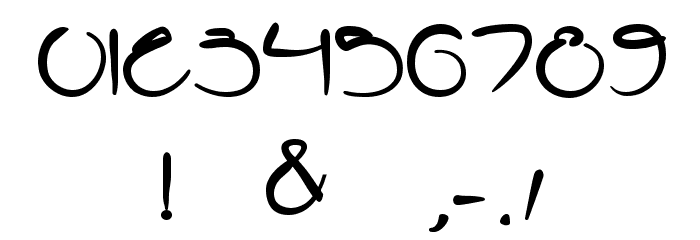
Elephant Font
This font features a playful and whimsical style with a unique blend of rounded and angular elements. The uppercase letters are bold and dynamic, with a slight slant that adds a sense of movement. The lowercase letters maintain a consistent style, with some characters featuring distinctive loops and curves. Numbers are similarly styled, with a bold presence that matches the overall aesthetic. Special characters are creatively integrated, maintaining the font's playful nature. The font's overall appearance is both modern and artistic, making it suitable for creative projects.
A playful and whimsical font with bold, dynamic characters and a modern artistic style.
- Font: Elephant
- Proposed Projects: Ideal for children's book covers, playful branding, creative posters, and artistic invitations.
- Overall Style: Modern, Artistic